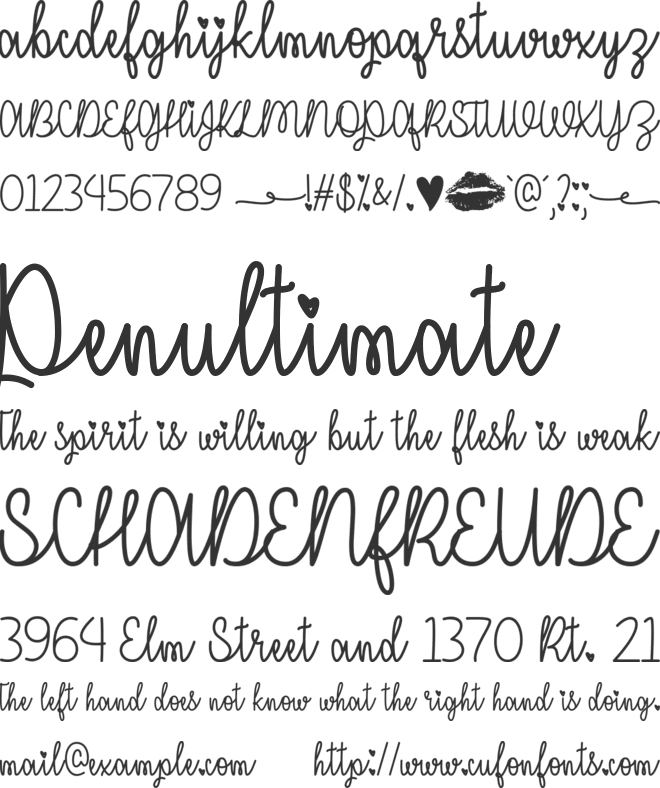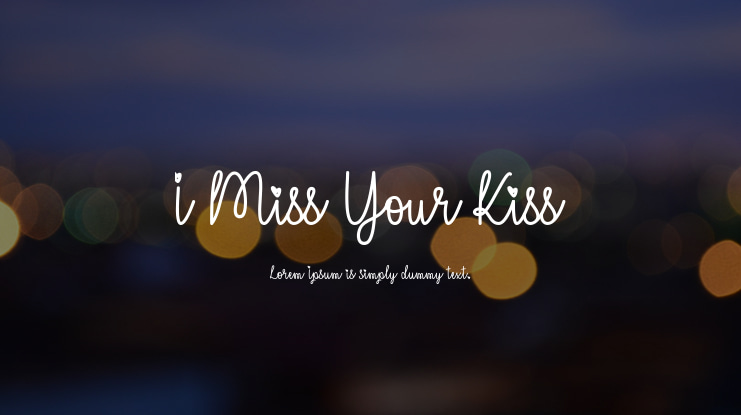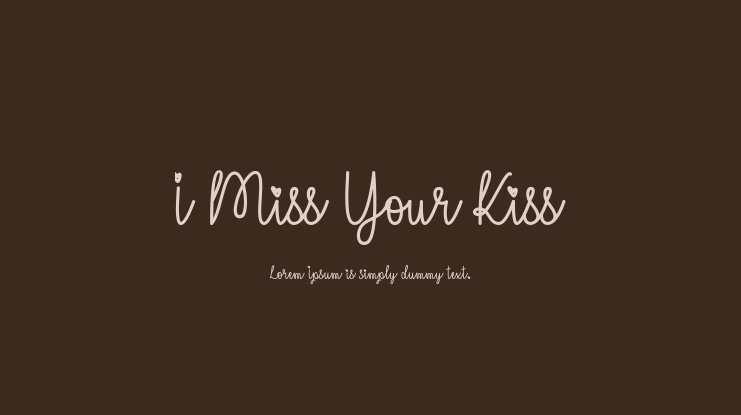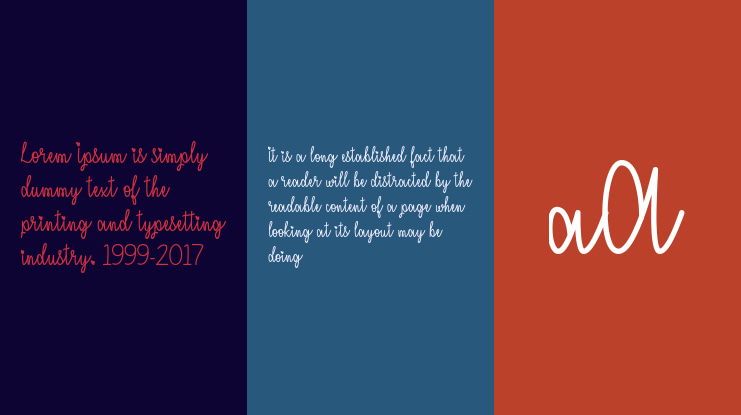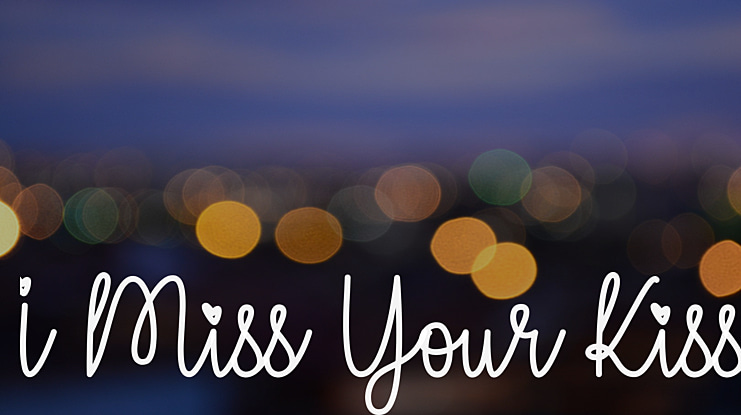
I Miss Your Kiss Font
Terms of use & commercial licensing: mistifonts.com/i-miss-your-kiss/ (https://mistifonts.com/i-miss-your-kiss/)Special SymbolsType * (asterisk) for the lipsType \ (back slash) font the open heart connectionType ^ (caret) font the solid heart connectionType _ (underscore) for swash that connects lettersType | (vertical bar) for solid heartType ~ (tilde) for open heartType [] (brackets) for small swashes: [Kiss]Type {} (curly braces) for medium swashesType () (parentheses) for big swashes